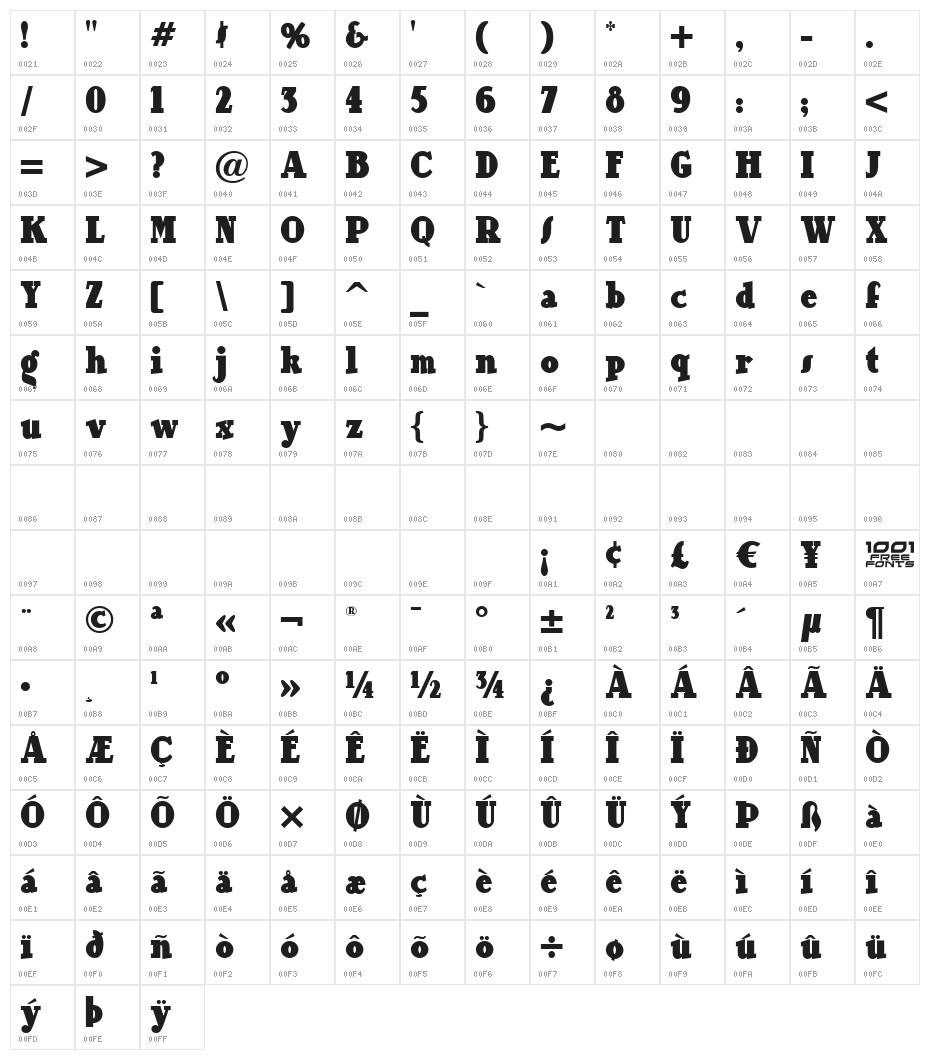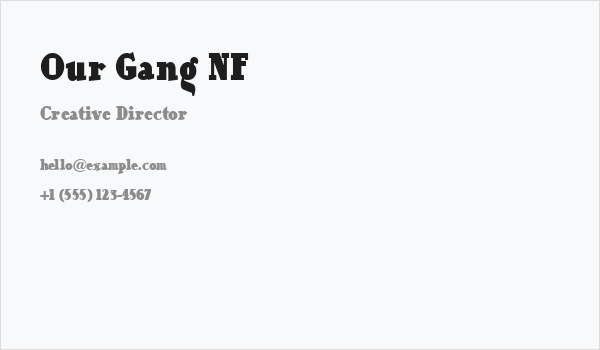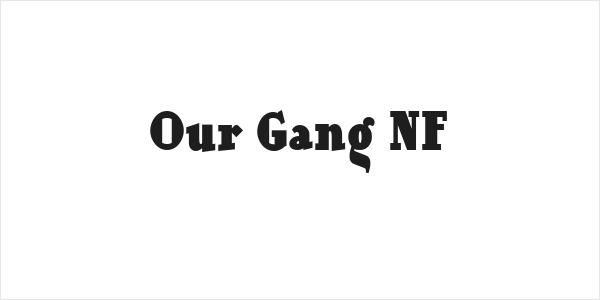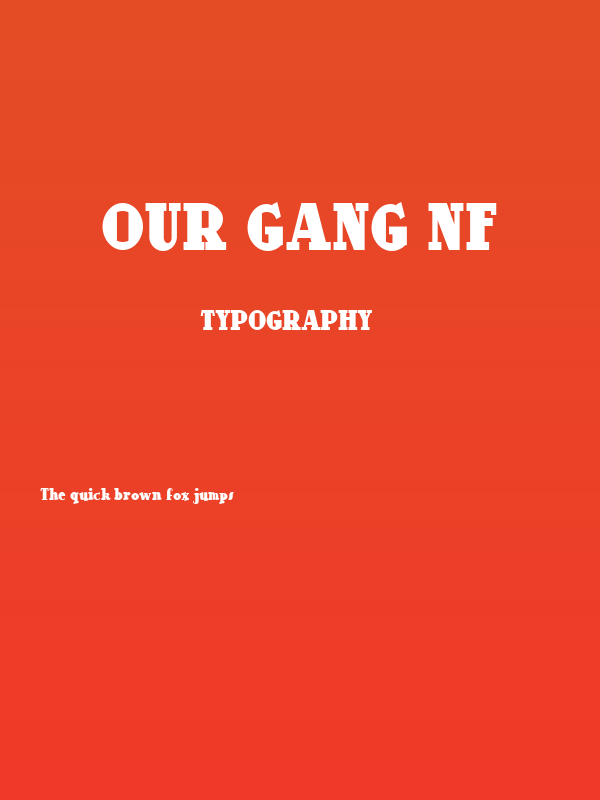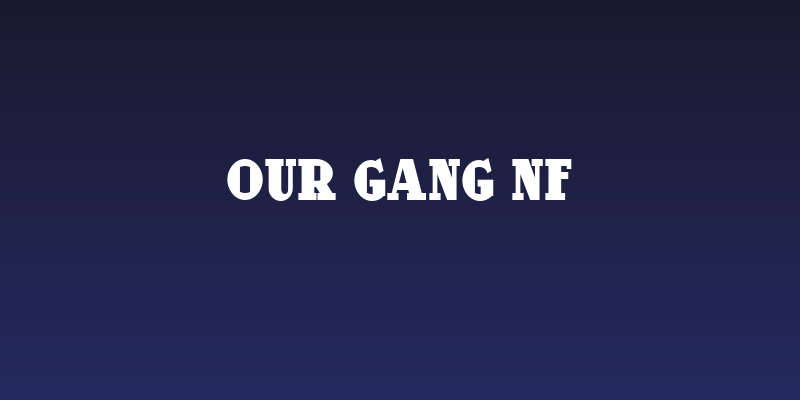
Our Gang NF Font
Our Gang NF Description
This font features a bold and playful design with a strong presence. The letters are thick and rounded, giving them a friendly and approachable look. The uppercase letters have a slight vintage flair, reminiscent of early 20th-century styles, while the lowercase letters maintain a consistent weight and style. The numerals are bold and easily readable, making them suitable for various applications. Special characters are designed with the same boldness, ensuring consistency across all glyphs. This font is ideal for projects that require a touch of nostalgia and a strong visual impact.
Overall StyleVintage
Proposed ProjectsIdeal for posters, branding, children's books, and retro-themed designs.